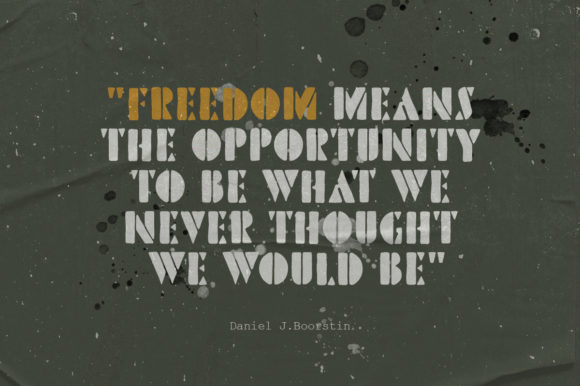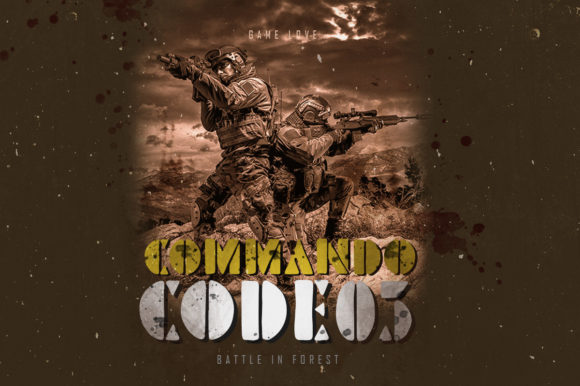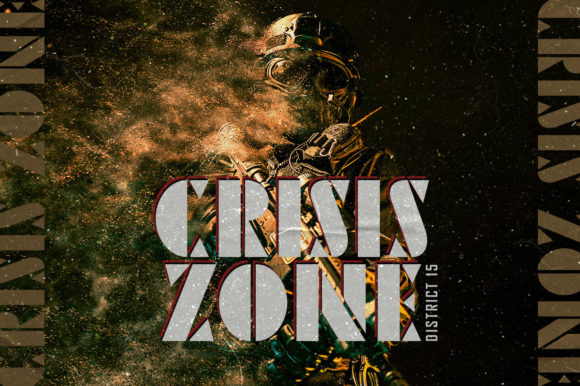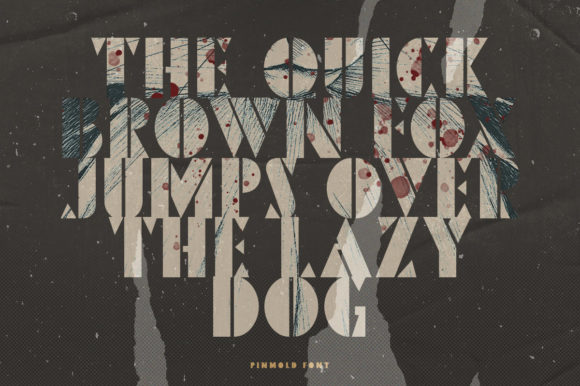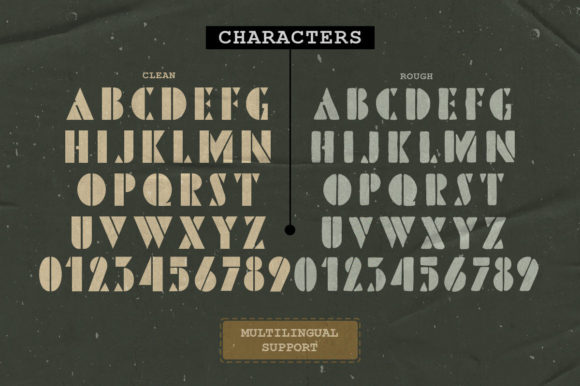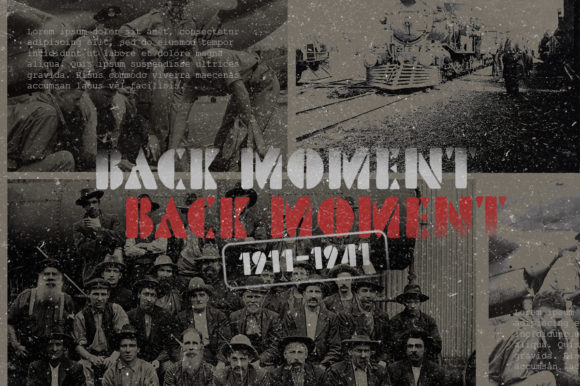
Introduction to Pinmold Font
Have you ever stared at a blank canvas, trying to spark inspiration for your next creative project? For many designers, it’s that initial spark that sets the tone for the entire project. It’s the moment when everything comes together – the perfect balance of color, texture, and typography. And when it comes to typography, one font stands out from the rest: Pinmold Font. This cool, bold, and thick lettered display font is the perfect addition to any high-quality design resource.
With its rough lettered, vintage styled aesthetic, Pinmold Font instantly elevates any design, making it a valuable resource for designers looking to add a touch of personality to their work. Whether you’re working on a project with a transparent background or a bold, eye-catching design, Pinmold Font is sure to make a statement. And the best part? It’s available for free download, making it an essential design resource for any creative project.
Key Features of Pinmold Font
- High-quality, elegant design ideal for creative projects, including invitations, cards, and posters.
- Features a transparent background, allowing for seamless integration with any design element.
- Includes a range of font styles and sizes, including Pinmold Font Regular and Pinmold Font Bold, in OTF and TTF file formats.
- Supports a wide range of languages, making it a versatile design tool for various creative projects.
- Perfect for designers and artists working on high-quality, professional projects, such as branding, advertising, and publishing.
Honest Review: Pinmold Font
As a designer, I’m always on the lookout for high-quality design resources to help me bring my creative projects to life. Recently, I stumbled upon the Pinmold Font, and I’m excited to share my honest review with you.
- Unique design aesthetic: The Pinmold Font has a distinctive and modern look that sets it apart from other fonts.
- Transparent background: The font’s transparent background makes it easy to use with a variety of design elements.
- Limited character set: The font’s character set is limited, which may not be suitable for complex design projects.
- No bold or italic weights: The font only comes in regular weight, which may not provide enough flexibility for certain design applications.
Overall, I’m impressed with the Pinmold Font’s unique design and transparent background. While it may have some limitations, it’s still a valuable resource for designers working on creative projects. I’d recommend giving it a try, especially for free design projects or personal work.
Pinmold Font
The Pinmold Font is a high-quality design resource that offers a transparent background, making it ideal for creative projects. This versatile font can be easily downloaded for free, allowing designers to incorporate it into various designs.
The Pinmold Font is suitable for a variety of creative projects, including:
– Social media posts and graphics
– Presentations and reports
– Brochures and flyers
– Website headers and footers